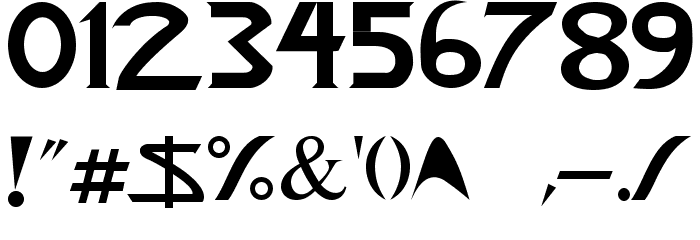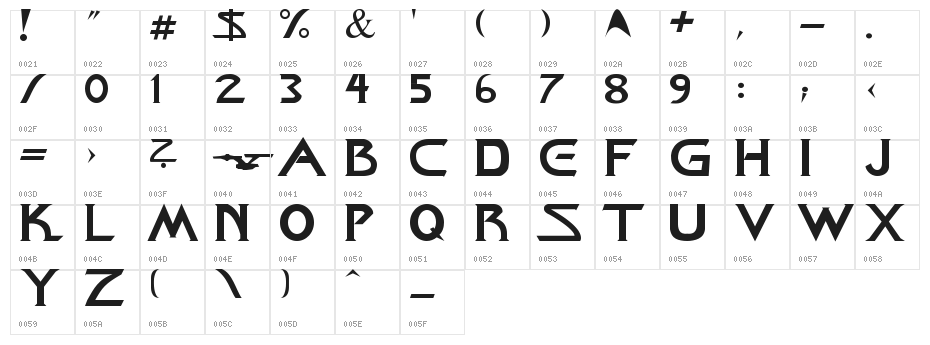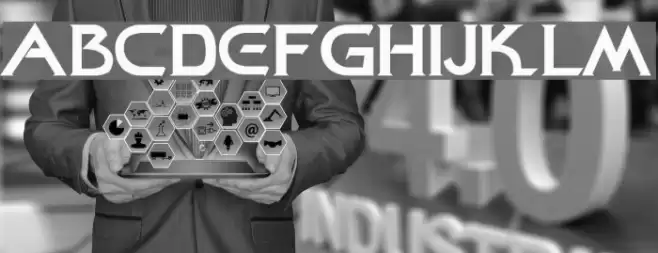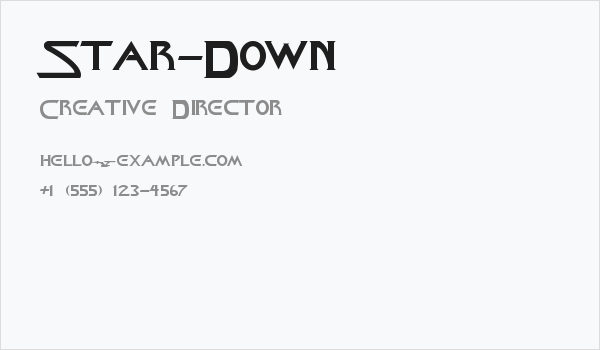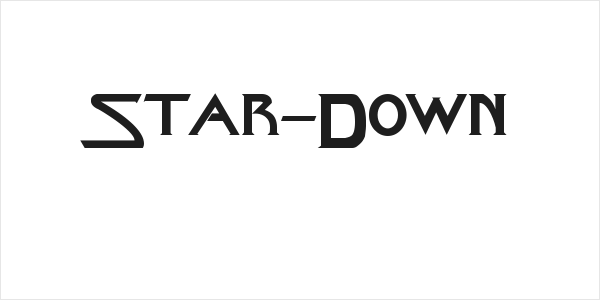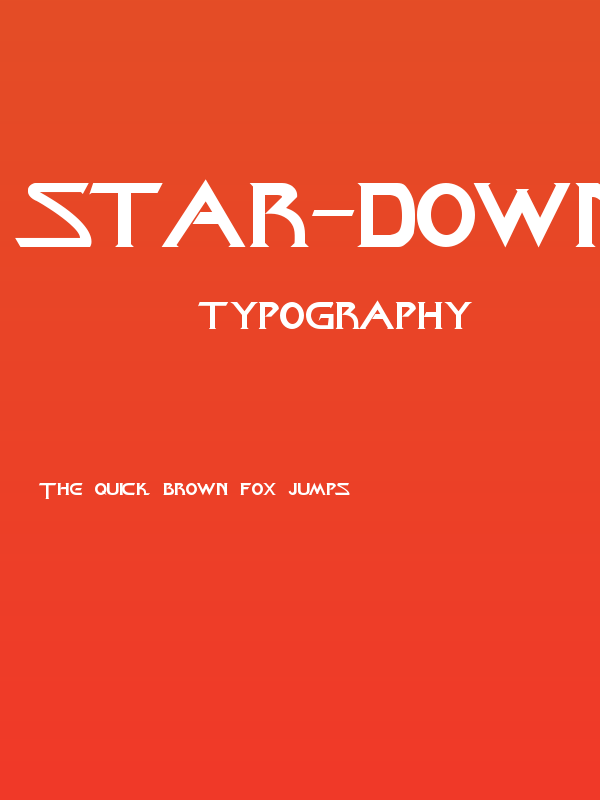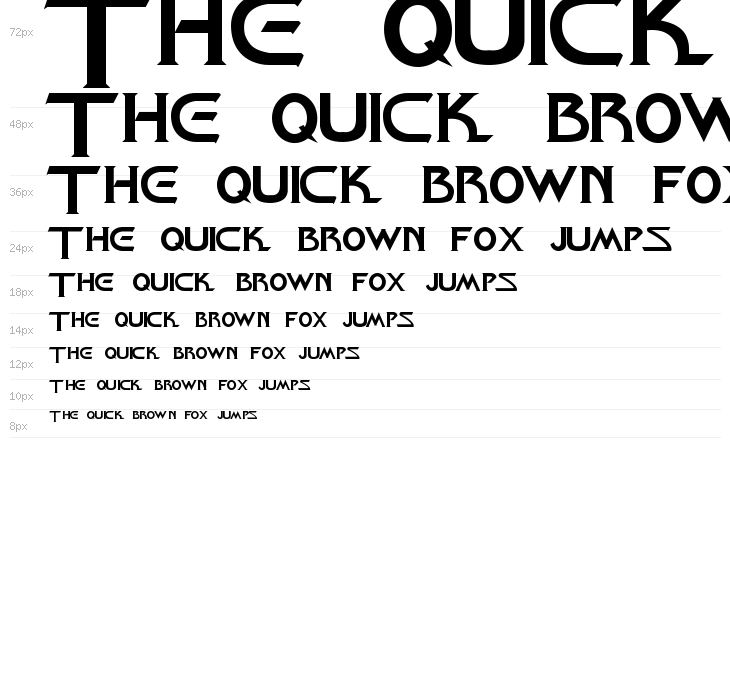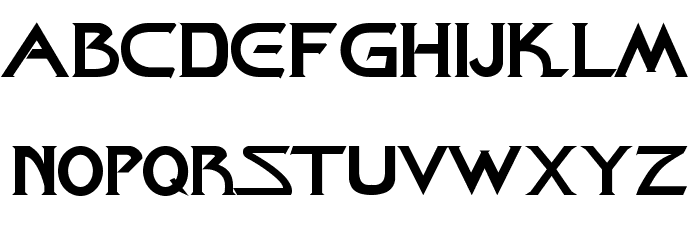
Star-Down Font
Star-Down Description
This font features a bold and dynamic style with sharp angles and geometric forms. The uppercase letters have a futuristic and edgy appearance, characterized by pointed serifs and unique cuts that create a sense of movement and energy. The numerals are equally striking, with a consistent design that complements the letters. Special characters maintain the bold aesthetic, adding to the font's versatility. This font is designed to capture attention and convey a modern, innovative feel.
| Proposed Projects | Ideal for sci-fi themed designs, technology branding, video game titles, and modern posters. |